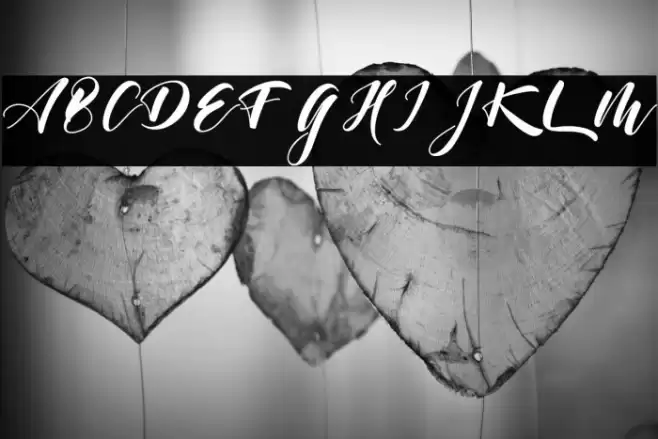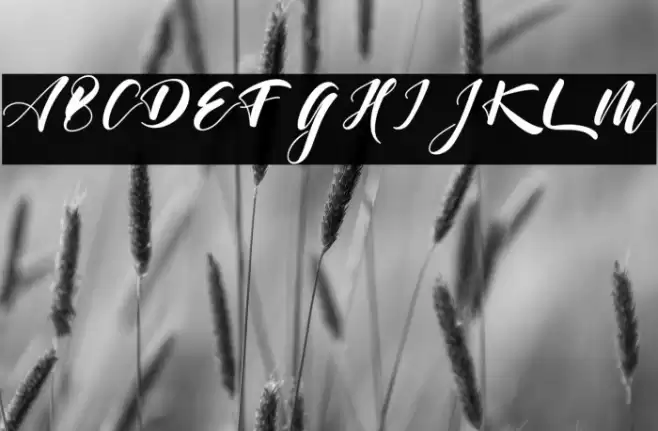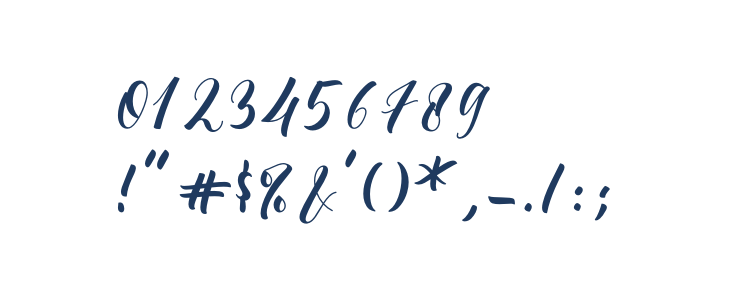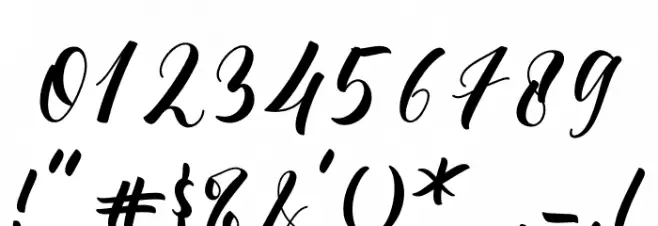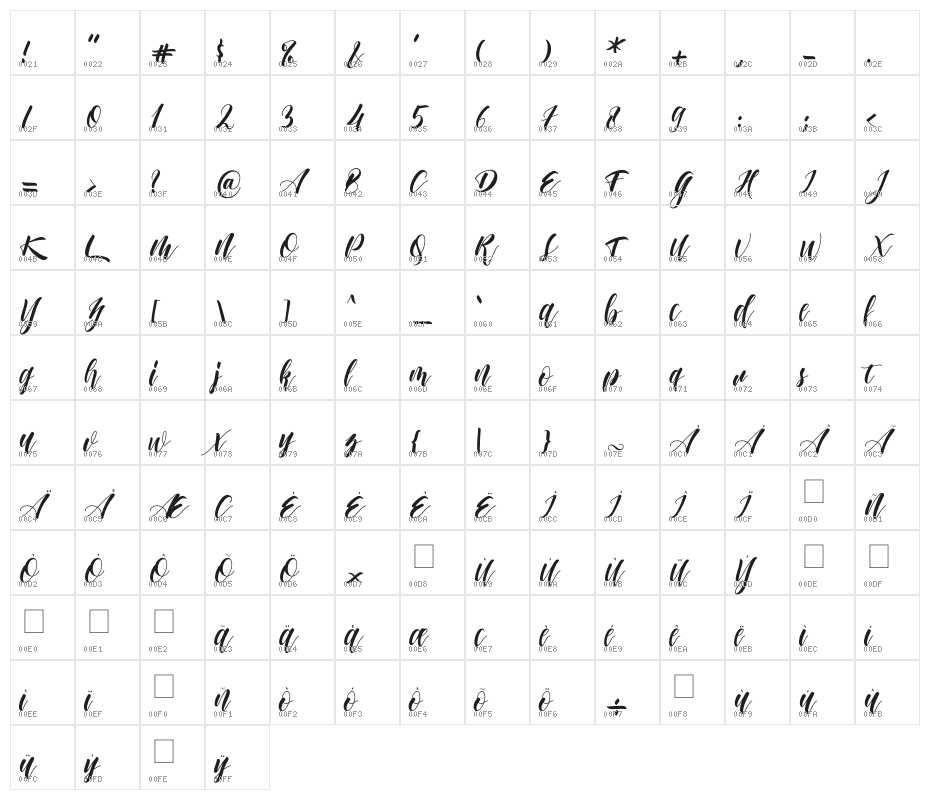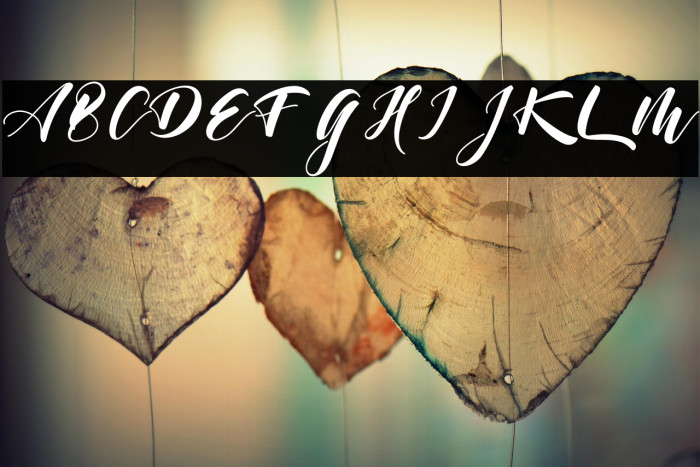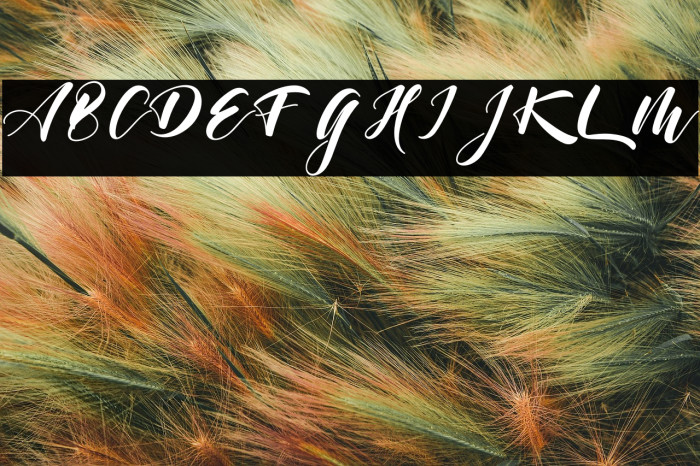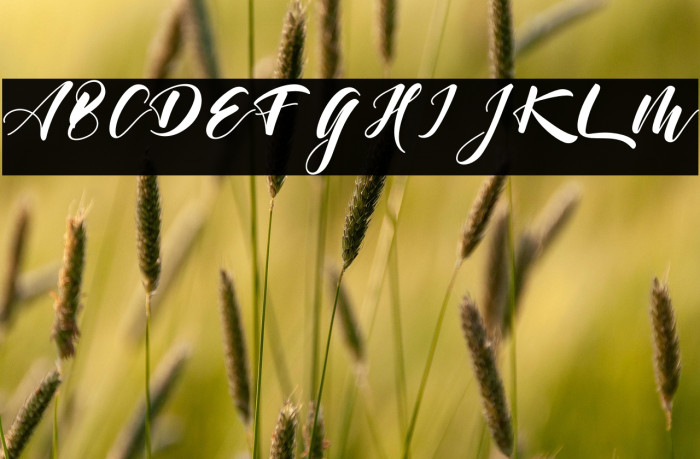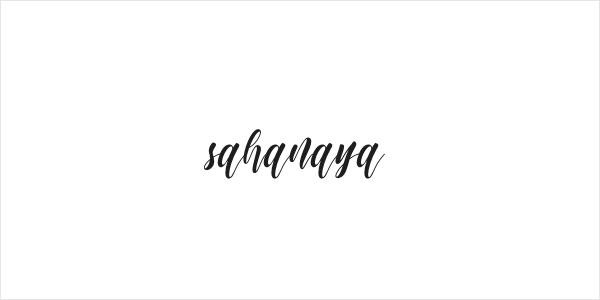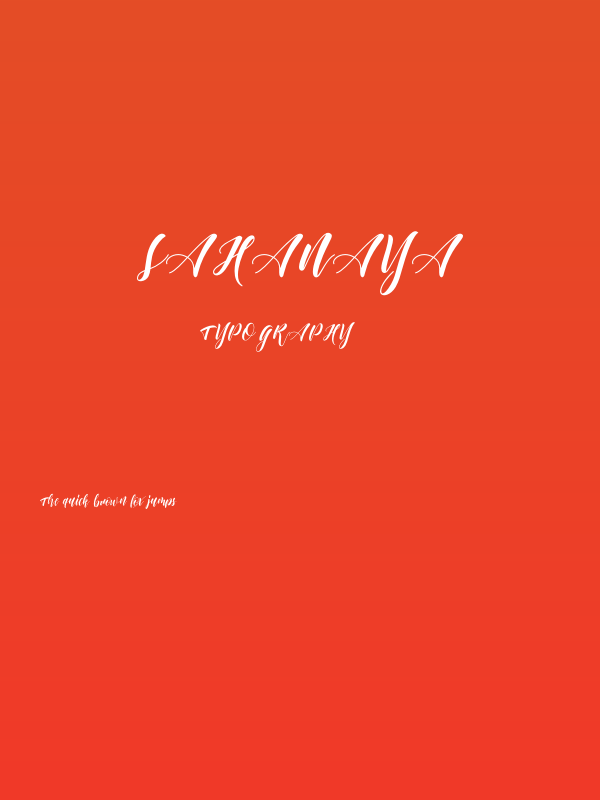
sahanaya Font
sahanaya Description
This font features a dynamic and flowing script style, characterized by its elegant and cursive letterforms. The strokes are smooth and connected, giving it a handwritten appearance that is both stylish and sophisticated. The uppercase letters are bold and prominent, while the lowercase letters maintain a consistent flow, enhancing readability. Numbers and special characters are crafted with the same fluidity, ensuring a cohesive look across all elements. The overall design is modern yet timeless, making it suitable for a variety of creative applications.
A dynamic and flowing script font with elegant, cursive letterforms from Uncategorized fonts.
- Proposed Projects: Ideal for wedding invitations, branding, greeting cards, and elegant packaging designs.
- Use Case: Logos, Invitations, Decorative text